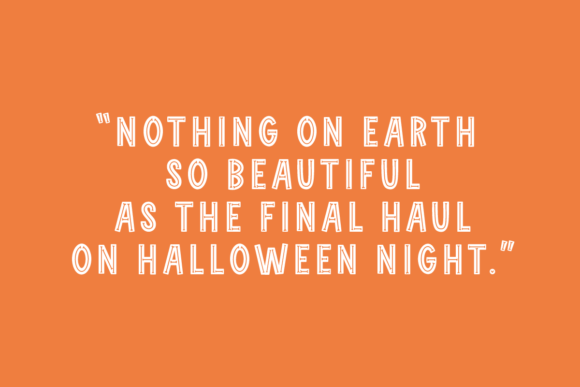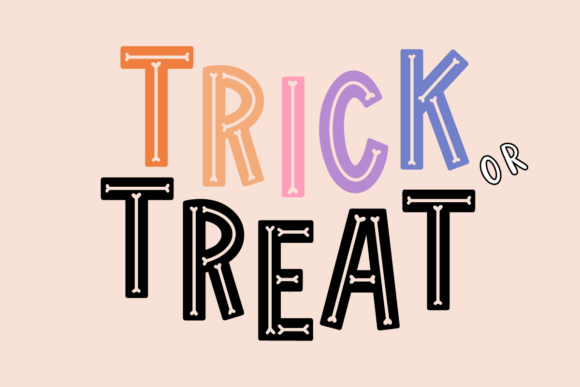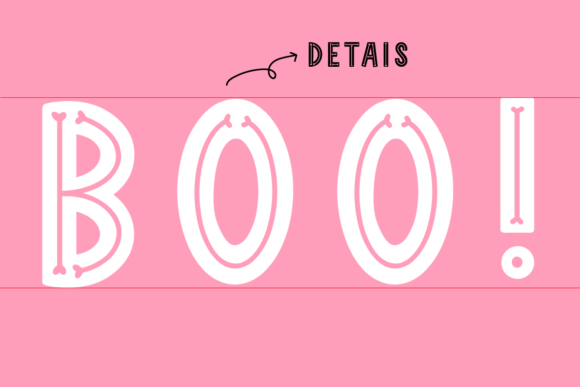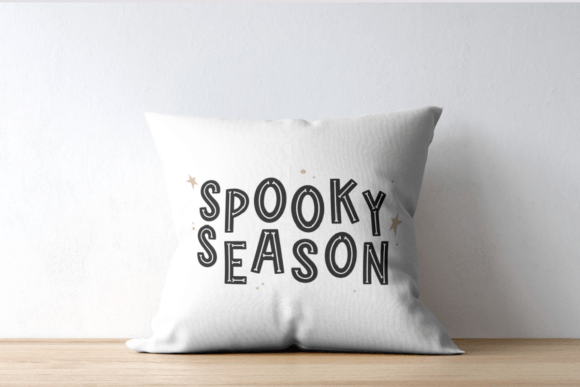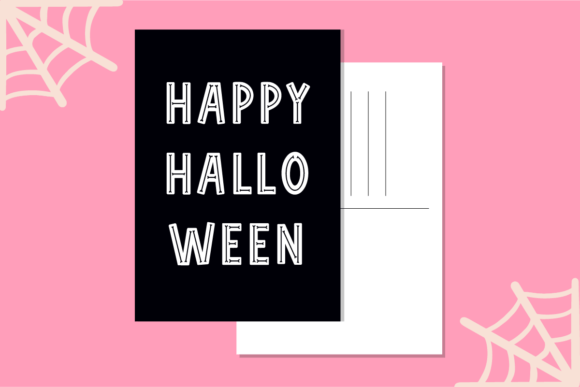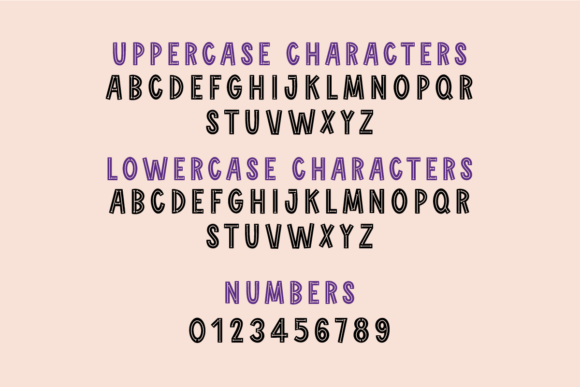
Introduction to Scary Bones Font
Scary Bones is a cute and playful decorative font.
Perfect for Halloween projects, shirts, retro designs,Christmas invitations, mugs, stickers, playful quotes, creating posters, logos, greeting cards, packaging, decorating the illustration and so much more .
Key Features of Scary Bones Font
Why Choose Scary Bones Font?